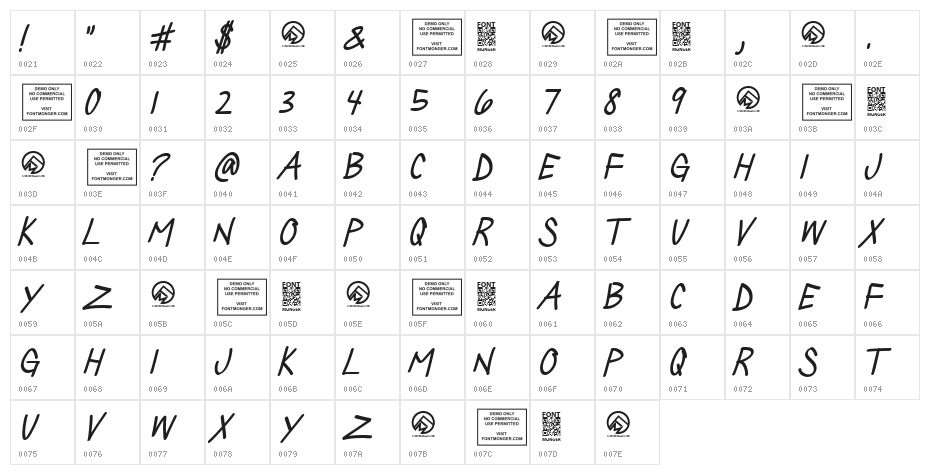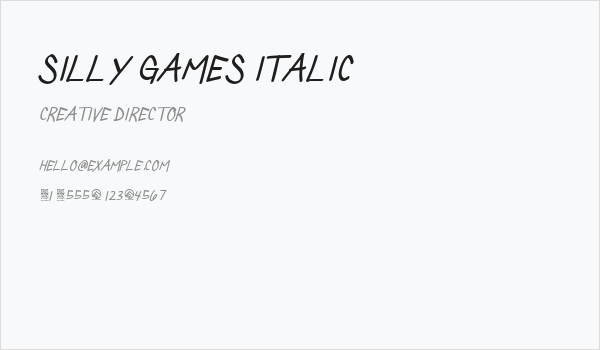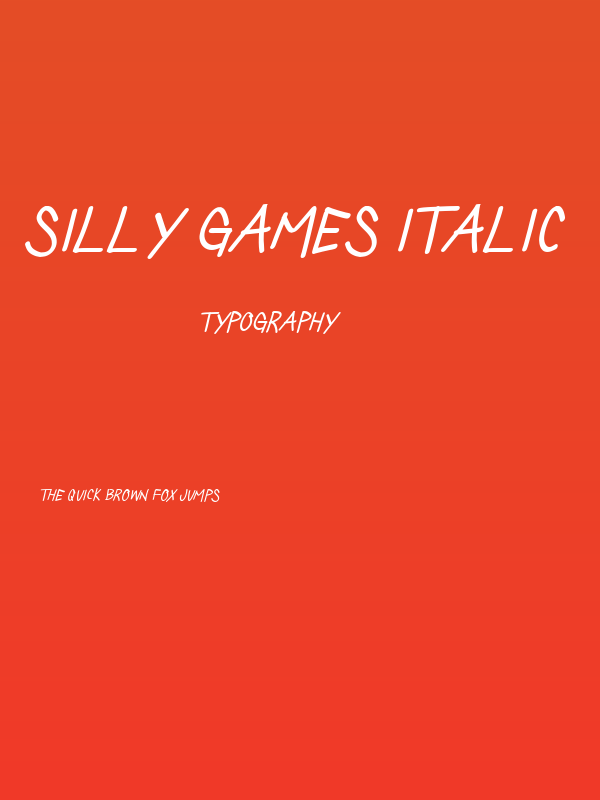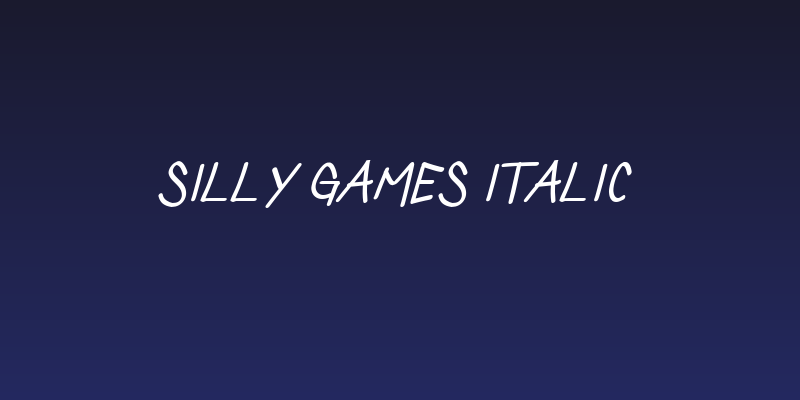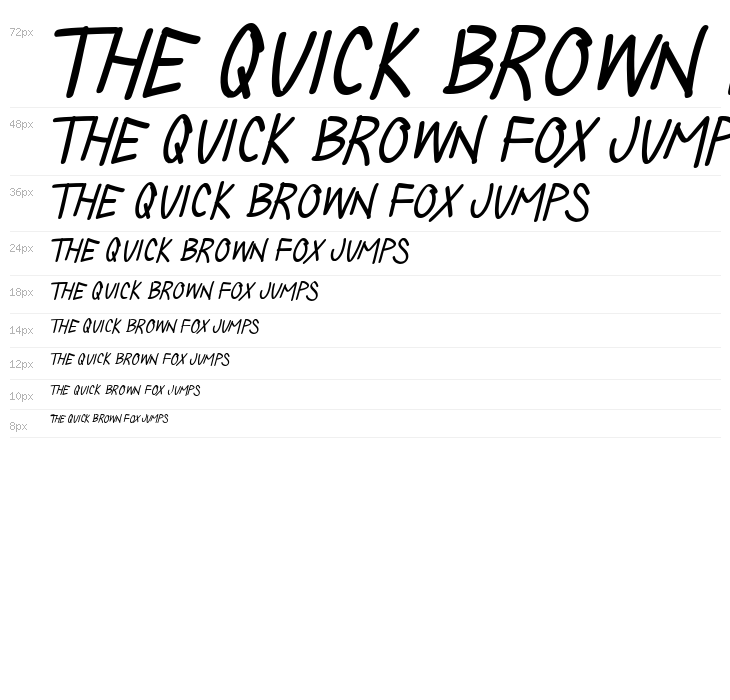
Silly Games Italic Font
Silly Games Italic Description
This playful and dynamic font features a handwritten style with a casual, informal appearance. The letters are slightly slanted, giving it an italicized look, and each character has a smooth, flowing quality. The strokes are consistent in thickness, providing a uniform appearance across the alphabet. The font includes both uppercase and lowercase letters, numbers, and a selection of special characters. Its whimsical nature makes it suitable for projects that require a touch of personality and creativity. The overall design is approachable and friendly, making it ideal for informal communications and creative projects.
| Use Case | Headlines, Informal Text, Creative Projects |
| Proposed Projects | Ideal for greeting cards, children's books, playful branding, and casual invitations. |